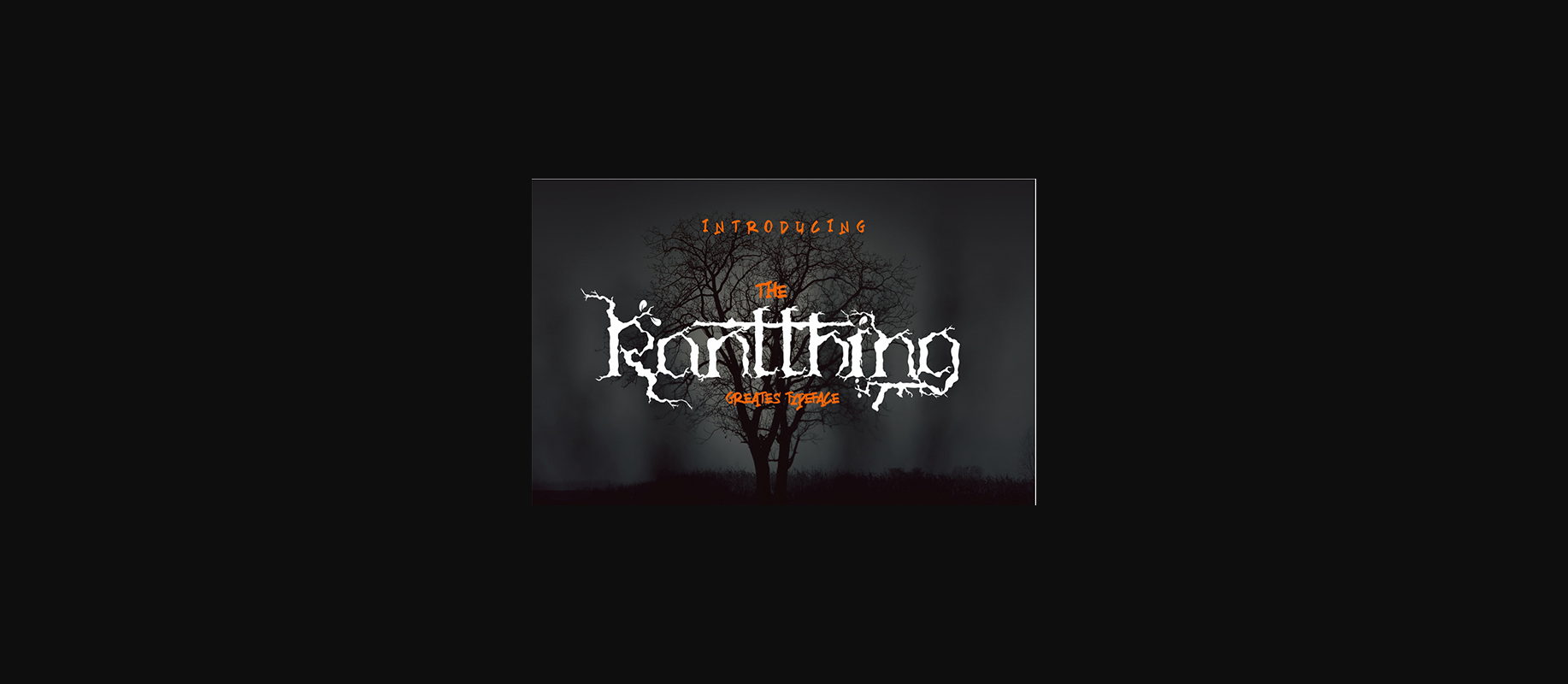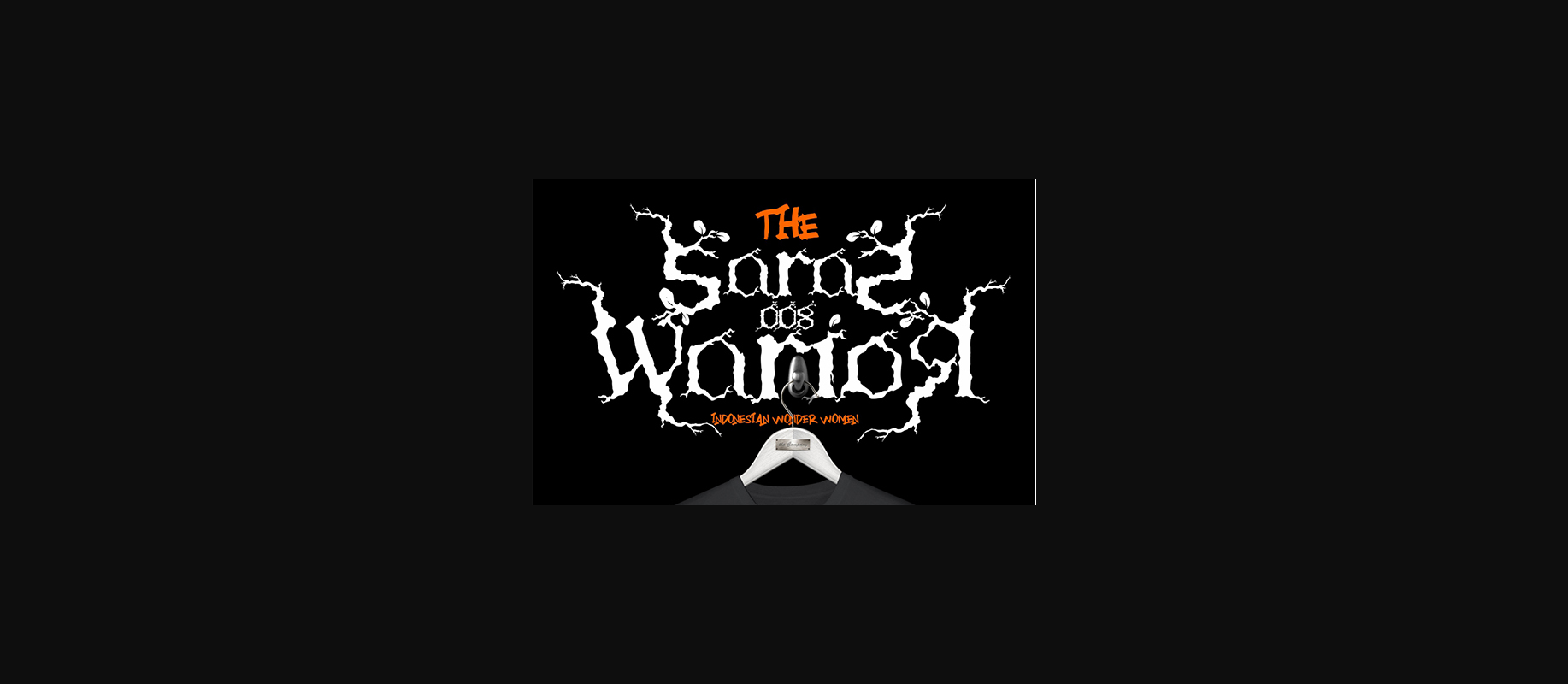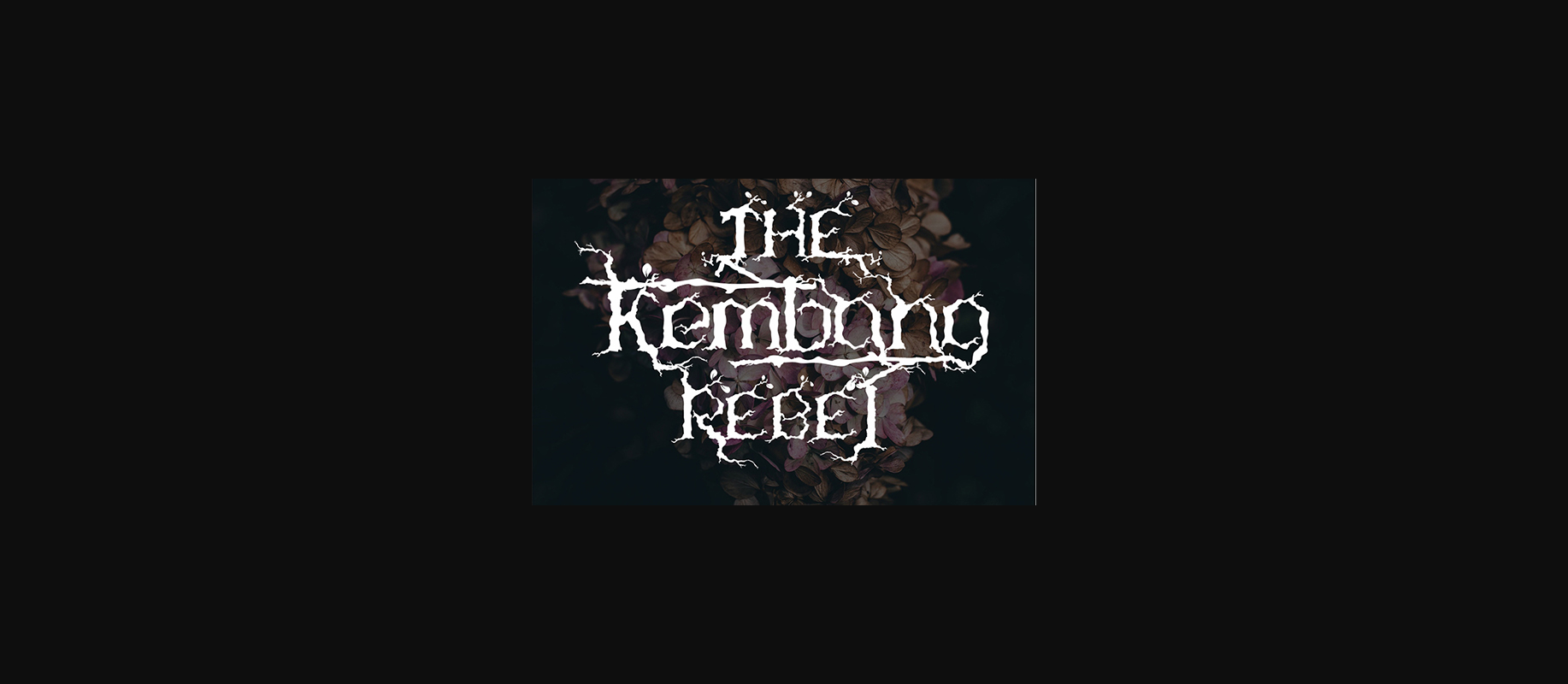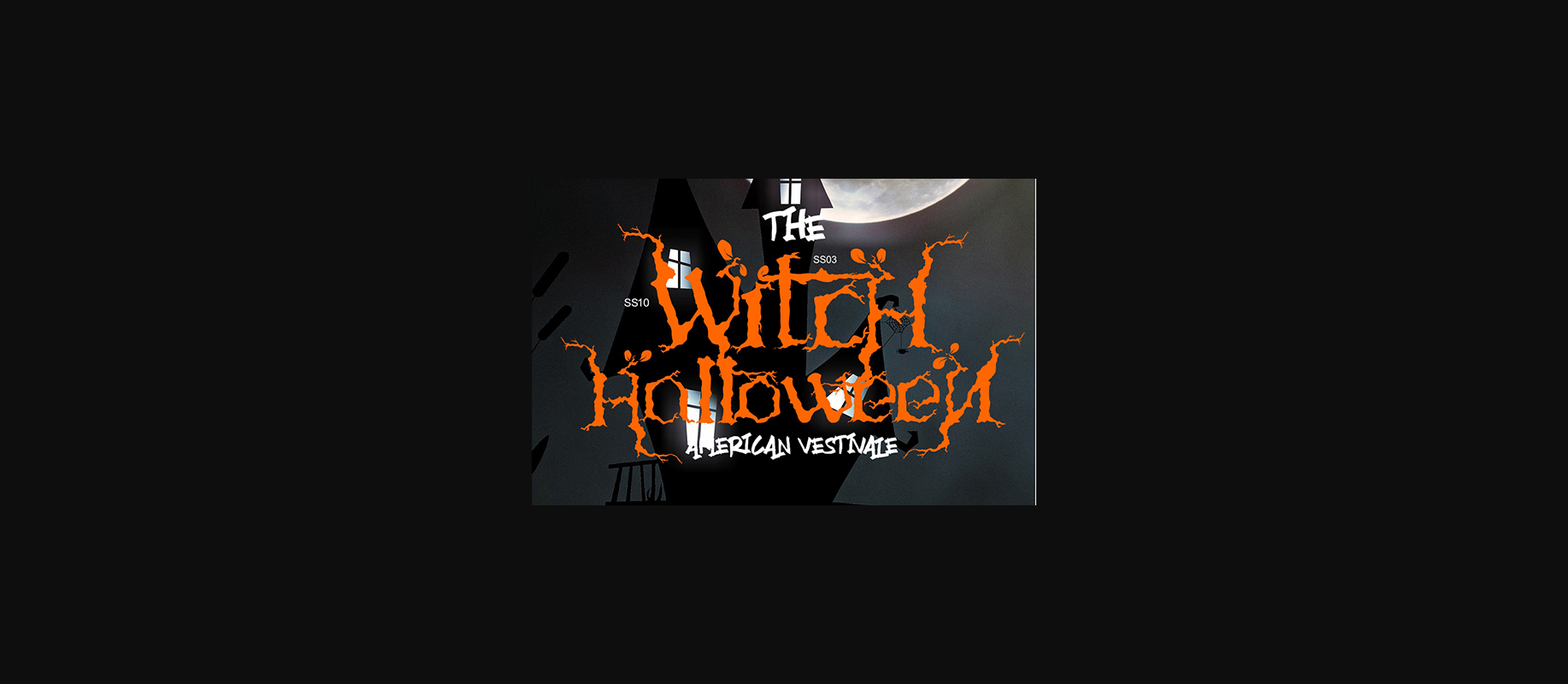
HomeDecorative FontsThe Ranthing Typeface Font Decorative Fonts The Ranthing Typeface Font FacebookXPinterestWhatsApp 1 of 4 About The Ranthing Typeface Font The Ranthing is a handmade type, bringing a professional, creative look to your projects! DOWNLOAD NOW People also explored Helo Angel Font Monthly Font Fagguard Font Bantteng Farm Font Happy Family Font Blackstone Hand Font Gravel Font Going to School Font Stalshine Font 322 0 TagsThe Ranthing Typeface Font Previous articleColor Blindness FontNext articlePryma Font LEAVE A REPLY Cancel reply Comment: Please enter your comment! Name:* Please enter your name here Email:* You have entered an incorrect email address! Please enter your email address here Website: Save my name, email, and website in this browser for the next time I comment. Personal Use Free Hysteria Santa Personal Use Free Read more about this font Sabina Illusion Personal Use Free Read more about this font Black Jalal Personal Use Free Read more about this font Thruster Personal Use Free Read more about this font BLOG Elegant Wedding Invitation Fonts – Handwritten & Script Fonts Elegant Wedding Invitation Fonts Your wedding day is one of the most important moments of your life, and every detail matters—including your invitation design. Our... Free vs Paid Fonts: Why Investing in Premium Fonts Is Worth It 5 Fonts That Will Dominate Design Trends in 2026 To increase your work productivity, choose the most readable fonts.